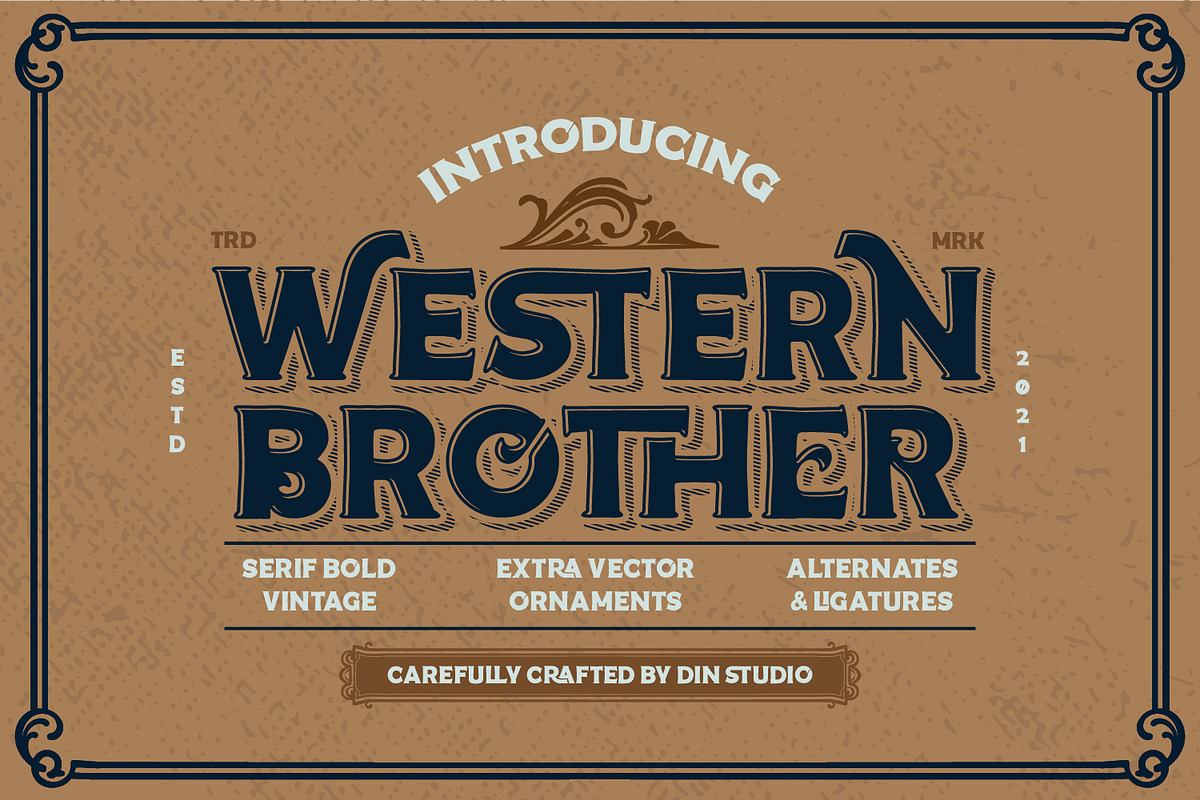
Western Brother Font Free Download is a bold, vintage-inspired typeface that brings the spirit of the Wild West to your designs. With its strong, western-style letterforms and rustic details, this font is perfect for creating vintage logos, cowboy-themed posters, event branding, and anything that requires a rugged, adventurous vibe.
The font's unique design captures the essence of western Americana, making it ideal for projects related to outdoor adventures, country music, saloons, and western-inspired brands.